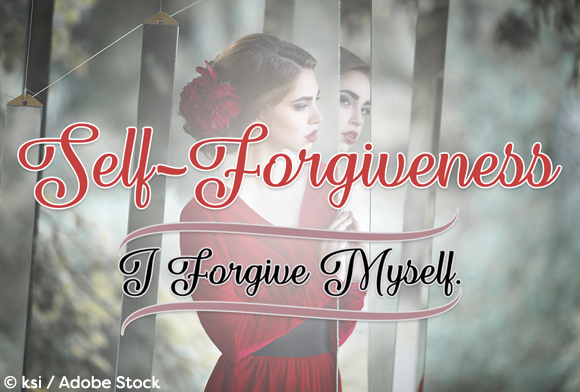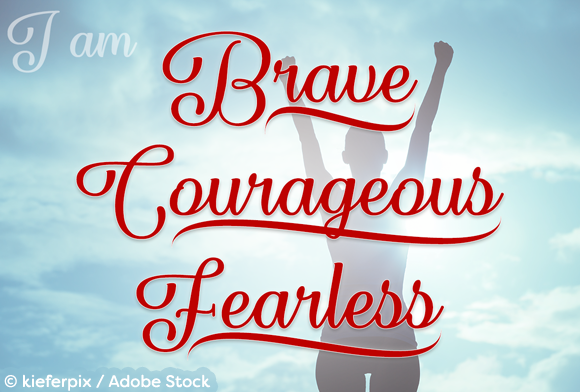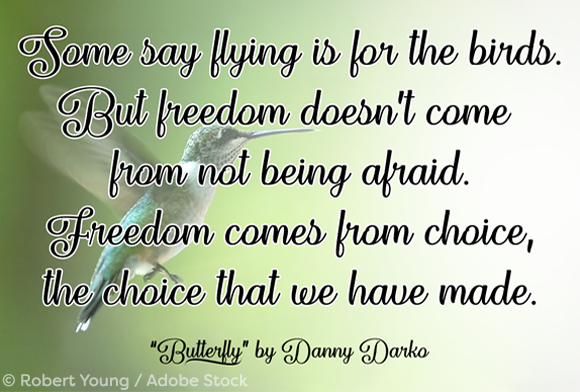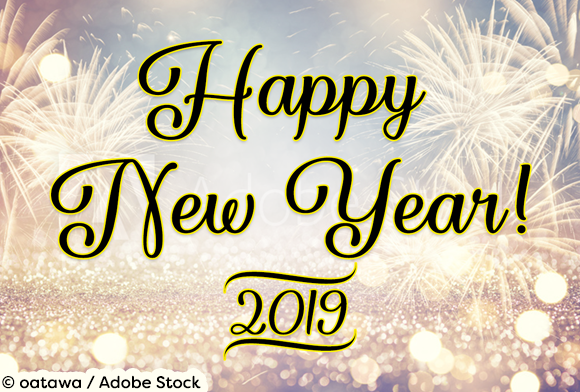
Introducing the Forgiven Script Font: Elevate Your Designs with Elegance
The Forgiven script font is a stunning calligraphy typeface that has been making waves in the design community. Its elegant and refined aesthetic makes it an ideal choice for a wide range of creative projects, from wedding invitations and logos to menus and book covers. In this article, we’ll dive into the world of The Forgiven font, exploring its features, uses, and benefits for designers and crafters.
A Perfect Blend of Style and Versatility
The Forgiven script font boasts a unique blend of classic calligraphy and modern flair, making it perfect for designers seeking to add a touch of sophistication to their work. This beautiful font includes a range of features that set it apart from other script fonts on the market. One of its standout features is the inclusion of beautiful underline swashes, which can be used to create stunning designs that are sure to impress.
So, what can you create with The Forgiven script font? The possibilities are endless! Here are just a few ideas to get you started:
- Wedding Invitations: Create beautiful, bespoke wedding invites that set the tone for the big day. The Forgiven font’s elegant aesthetic makes it perfect for formal wedding stationery.
- Logos: Use The Forgiven font to create a stunning logo for your business or brand. Its unique blend of style and sophistication makes it ideal for businesses seeking to establish a professional image.
- Menus: Add a touch of elegance to your restaurant or cafe’s menu with The Forgiven script font. Its refined aesthetic is sure to impress customers and elevate the dining experience.
- Book Covers: Create a stunning book cover that stands out from the crowd with The Forgiven font. Its classic calligraphy style makes it perfect for fiction, romance, and historical novels.
Key Features of The Forgiven Script Font
The Forgiven script font comes with a range of features that make it a must-have for designers and crafters. Some of its key features include:
- Beautiful Underline Swashes: Add a touch of elegance to your designs with The Forgiven font’s stunning underline swashes.
- Elegant Calligraphy Style: The Forgiven font boasts a refined, classic calligraphy style that’s perfect for formal designs.
- High-Quality Vector Graphics: The Forgiven font is designed with high-quality vector graphics, ensuring that it looks stunning at any size.
Tips for Using The Forgiven Script Font
To get the most out of The Forgiven script font, here are a few tips to keep in mind:
- Pair with a Sans-Serif Font: Pair The Forgiven font with a sans-serif font to create a stunning contrast that adds visual interest to your design.
- Experiment with Underline Swashes: Don’t be afraid to experiment with The Forgiven font’s underline swashes to create unique and eye-catching designs.
- Use for Headings and Titles: The Forgiven font is perfect for headings and titles, where its elegant aesthetic can really shine.
The Forgiven script font is a stunning calligraphy typeface that’s perfect for designers and crafters seeking to add a touch of elegance to their work. With its beautiful underline swashes, elegant calligraphy style, and high-quality vector graphics, it’s an ideal choice for a wide range of creative projects. Whether you’re designing wedding invitations, logos, menus, or book covers, The Forgiven font is sure to impress. So why wait? Download The Forgiven script font today and elevate your designs to the next level!